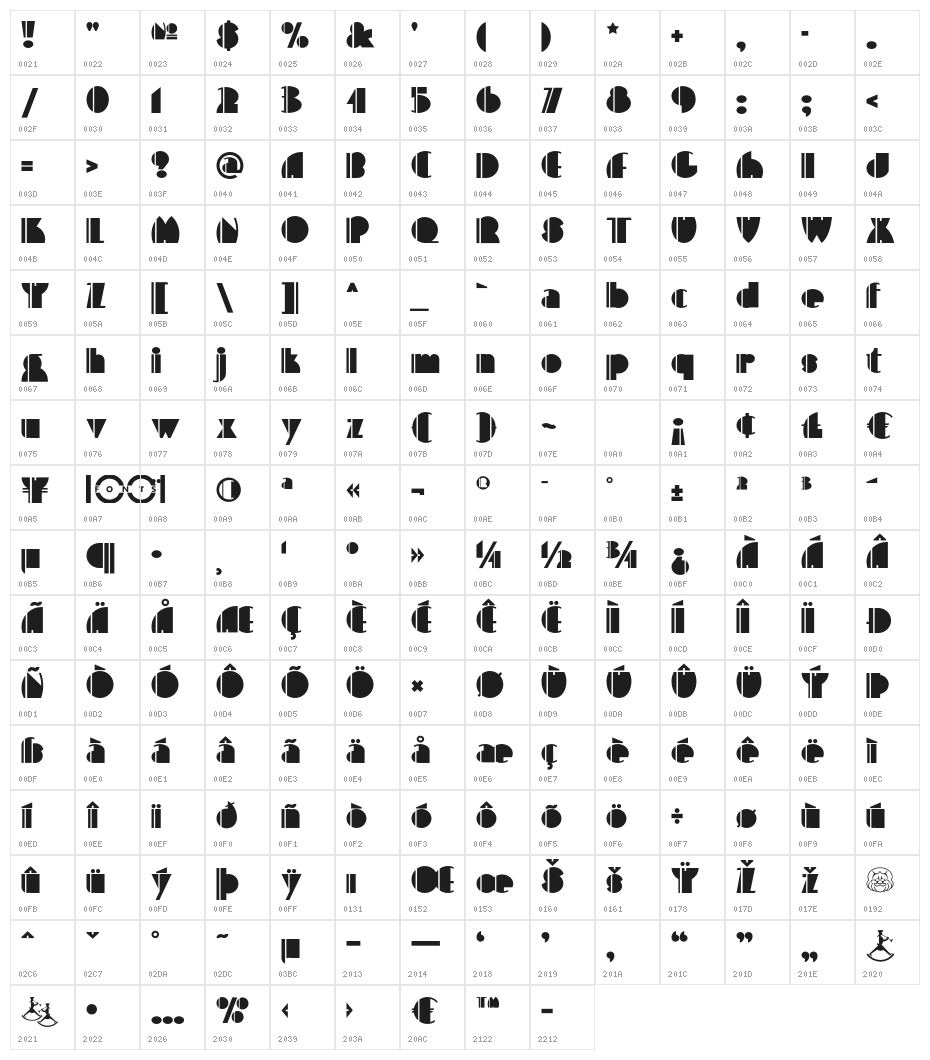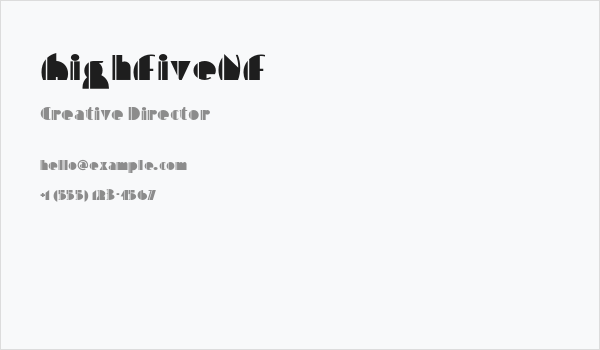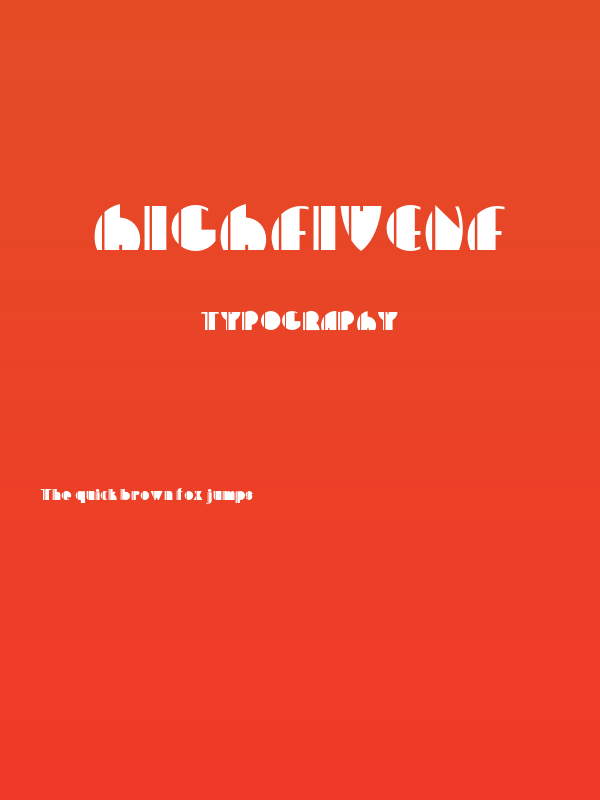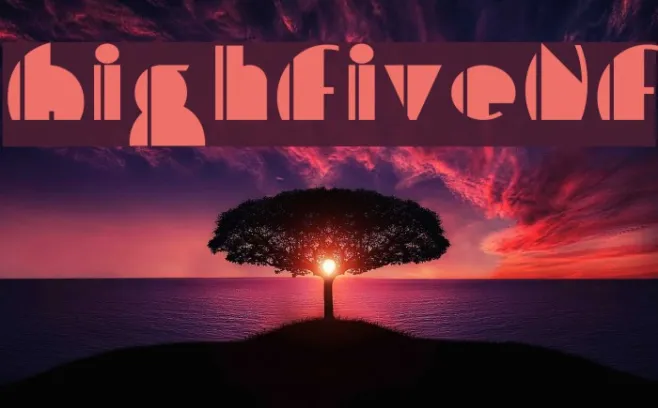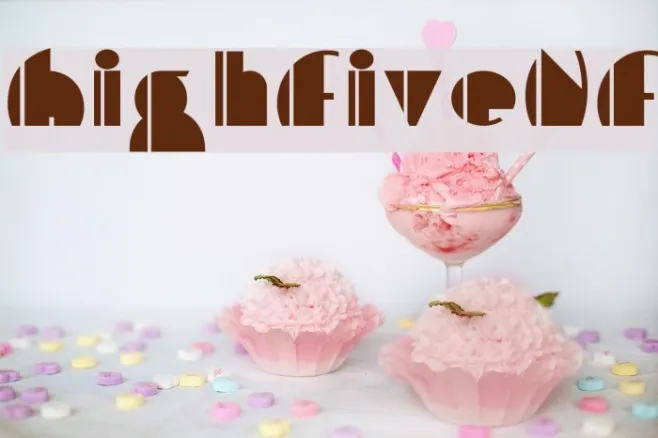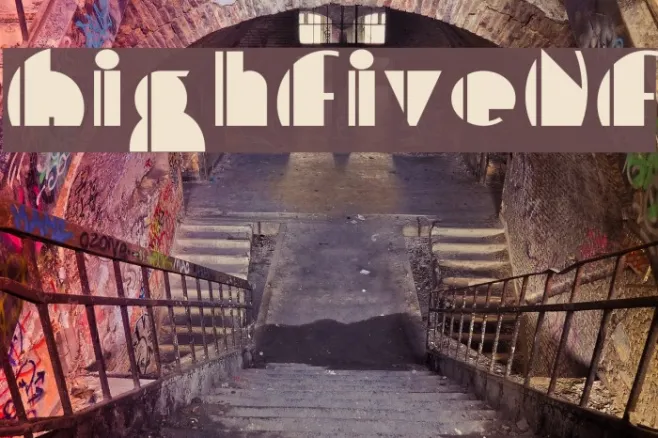
HighFiveNF Font
HighFiveNF Description
This font features a bold and geometric design, characterized by its strong, block-like shapes and high contrast between thick and thin strokes. The letters are constructed with a modern, abstract aesthetic, incorporating sharp angles and circular forms that create a visually striking appearance. The uppercase and lowercase letters maintain a consistent style, with unique cutouts and negative spaces that add to its decorative appeal. The numbers and special characters follow the same design principles, ensuring a cohesive look across all glyphs. This font is ideal for projects that require a bold statement and a contemporary feel.
| Proposed Projects | Ideal for branding, posters, headlines, and any design needing a bold, modern touch. |